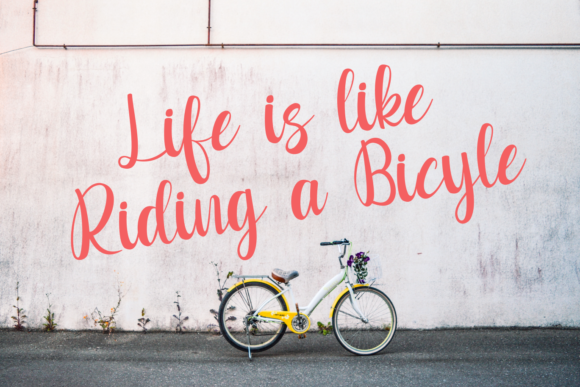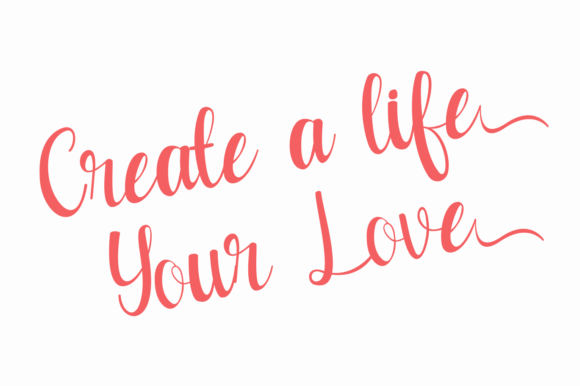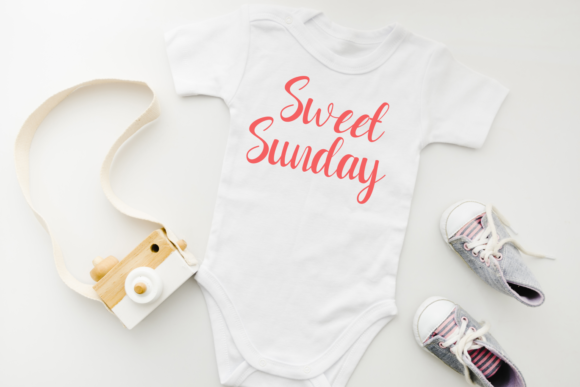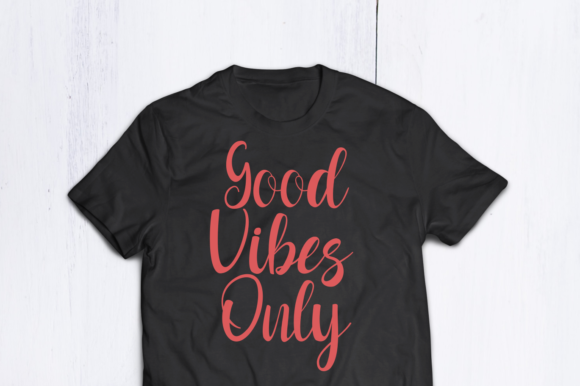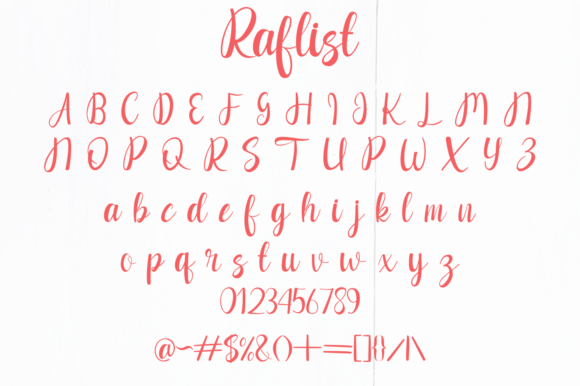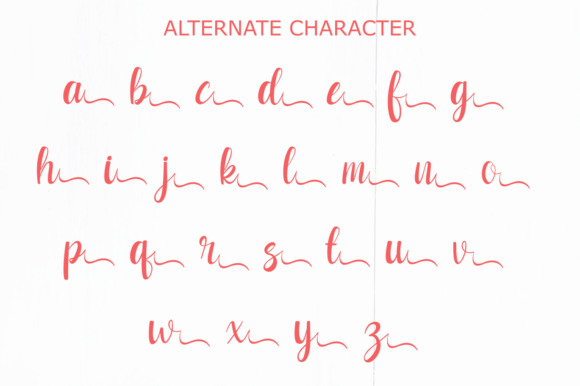
Introduction to Raflist Font
Have you ever found yourself staring at a blank page, struggling to bring your creative vision to life? For many designers, this is a familiar feeling, but what if you had the perfect tool to unlock your imagination? The Raflist Font is here to revolutionize your creative projects, and we can’t wait to share it with you.
This exquisite handwritten font is a game-changer for designers, offering a perfect blend of classic calligraphy and modern freshness. With its high-quality design and transparent background, it’s the perfect resource for any creative project. Whether you’re working on a logo, brochure, or social media campaign, the Raflist Font is sure to elevate your work to new heights.
Key Features of Raflist Font
- Features a transparent background for easy design integration
- Includes a large character set with extended Latin and Cyrillic support
- Designed to be highly legible at various resolutions, including 72 dpi and 300 dpi
- Perfect for use in graphic design, digital art, and other creative projects
Honest Review: Raflist Font
I recently had the chance to work with the Raflist Font, and I must say it’s been a game-changer for my design projects. This high quality font is perfect for any creative project that requires a touch of elegance.
- ✨ High quality design: The Raflist Font has a sleek and modern design that is perfect for any high-end project.
- ✨ Transparent background: The transparent background allows for seamless integration with any design, making it a versatile resource for designers.
- ⚠️ Limited font sizes: While the font is available in several sizes, I found it to be limited in terms of options for customizing font sizes.
- ⚠️ No bold option: I wish there was a bold option available for the Raflist Font, as it would have been perfect for headings and titles.
Overall, I’m thoroughly impressed with the Raflist Font and would highly recommend it to anyone looking for a high quality design resource for their creative project.
Tips for Getting the Most Out of Raflist Font
To get the most out of Raflist Font, use it on a transparent background to make your text stand out. You can also use it in combination with other fonts to create a unique and creative design. Experiment with different font sizes, colors, and styles to find the perfect combination for your project.
Raflist Font is perfect for use in logos, branding materials, and marketing campaigns. It’s also great for use in presentations, documents, and social media graphics. With its high-quality design and transparent background, Raflist Font is a versatile and creative resource for any design project.
Alternatives to Raflist Font
The Great Vibes Font is a high-quality, elegant script font perfect for creative projects that require a touch of sophistication. It features a transparent background and is ideal for wedding invitations, branding materials, and other design elements that need a personal touch. Compared to Raflist Font, Great Vibes Font has a more refined and classic look, making it suitable for formal events and high-end design projects.
Alex Brush Font is a free download that offers a unique and creative design resource for designers. It features a handwritten style with a transparent background, making it perfect for adding a personal touch to any design project. When to use: Use Alex Brush Font for creative projects that require a touch of whimsy and personality, such as social media graphics, blog posts, and marketing materials. Compared to Raflist Font, Alex Brush Font has a more playful and informal look, making it suitable for casual design projects.
Carolyna Pro Font is a high-quality font that offers a modern and sophisticated design resource for designers. It features a transparent background and is ideal for branding materials, packaging design, and other creative projects that require a touch of elegance. Compared to Raflist Font, Carolyna Pro Font has a more contemporary and sleek look, making it suitable for high-end design projects and businesses that require a professional image.